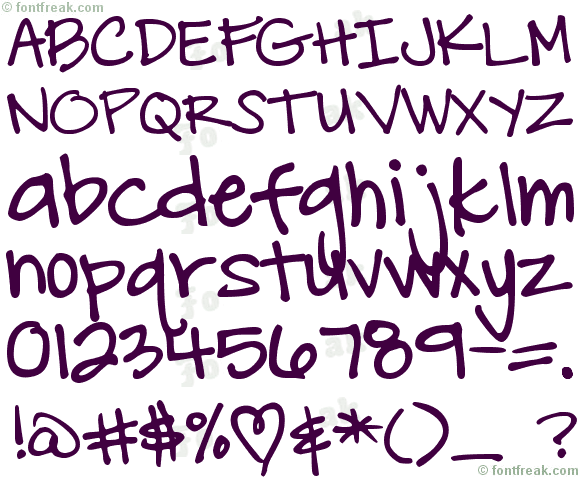
DJB Carly Sue Got Married is a delightful handwritten font designed by Darcy Baldwin, falling under the category of script typefaces. This charming font captures the essence of personal touch and warmth, making it perfect for various creative projects. Its visual characteristics feature a playful stroke weight with a slight contrast, giving it a light and airy feel. The spacing is inviting, allowing each letter to breathe, while the whimsical curves and loops add a unique flair that enhances its overall charm.
Ideal for a range of applications, DJB Carly Sue Got Married shines in contexts like wedding invitations, where its romantic style sets the perfect tone for special occasions. It also works wonderfully for greeting cards, helping to convey heartfelt messages with elegance. Content creators will find it suitable for social media graphics, adding a personal touch that resonates with audiences. Additionally, this font can elevate restaurant menus, creating an inviting atmosphere that complements the dining experience.
The target audience for this font includes graphic designers, small business owners, and content creators who seek to add a unique and engaging element to their work. Its versatility makes it a favorite among those looking to infuse charm and personality into their designs.
What sets the DJB Carly Sue Got Married font apart is its ability to blend a casual yet sophisticated style, making it a perfect choice for projects that require a handwritten aesthetic without sacrificing professionalism. With its freeware license, the DJB Carly Sue Got Married font free download offers accessibility for anyone looking to enhance their designs with this enchanting typeface. Whether for personal or commercial use, this font is sure to leave a lasting impression.